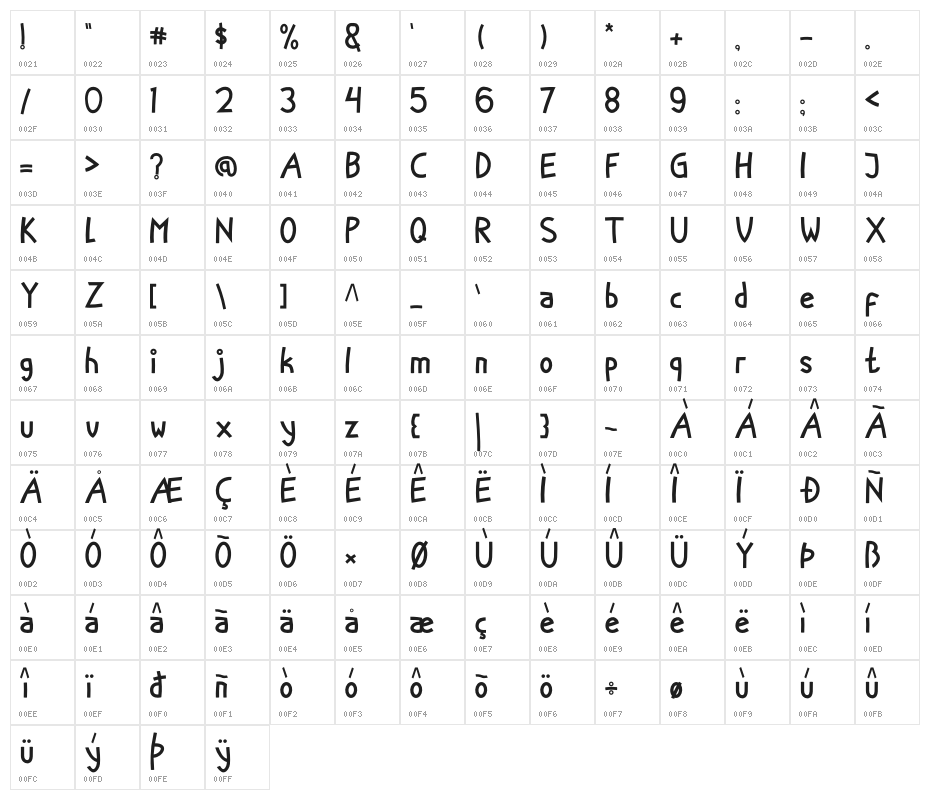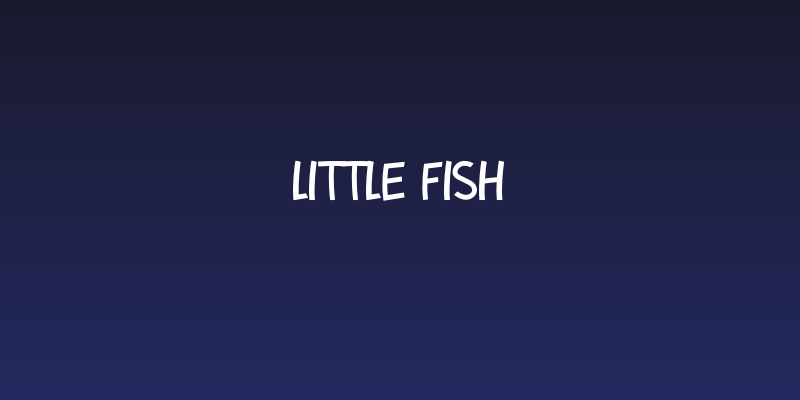
Little Fish Font
Little Fish Description
This playful and whimsical font features a hand-drawn style with irregular, slightly wavy lines that give it a lively and informal appearance. The uppercase letters are bold and slightly tilted, adding to the font's quirky charm. Lowercase letters maintain the same playful aesthetic, with unique touches like the dotted 'i' and 'j' and the distinctive loops in letters like 'g' and 'y'. Numbers are consistent with the overall style, featuring rounded edges and a casual feel. Special characters are creatively designed, maintaining the font's fun and approachable vibe. This font is perfect for projects that require a touch of personality and creativity.
Fonts by Display Studio
| Proposed Projects | Ideal for children's books, playful branding, greeting cards, and creative posters. |